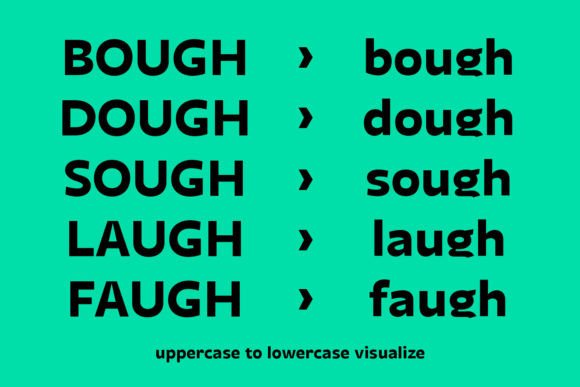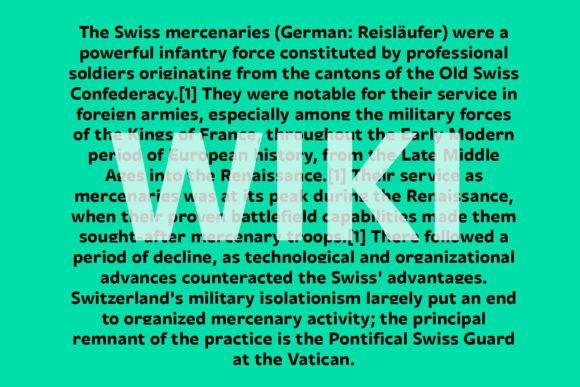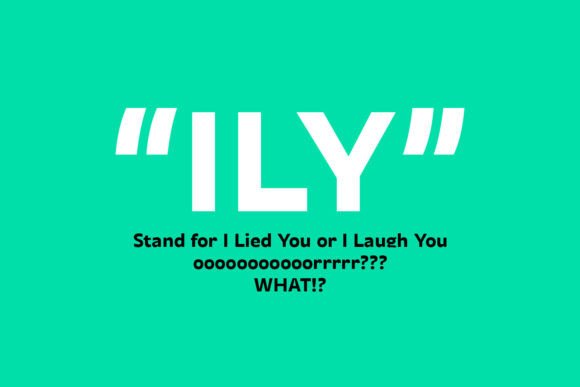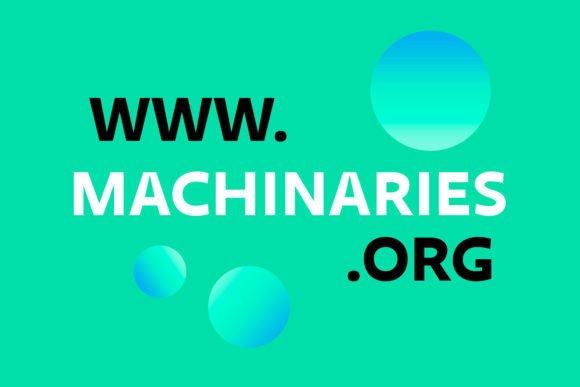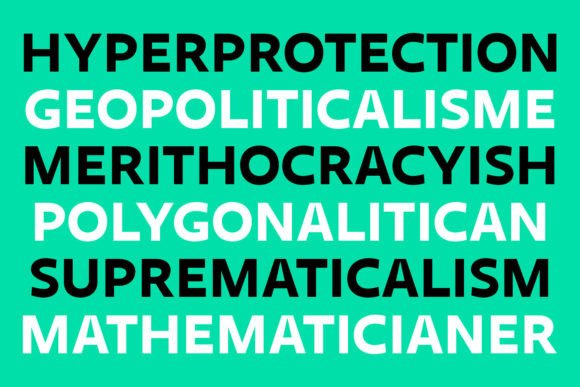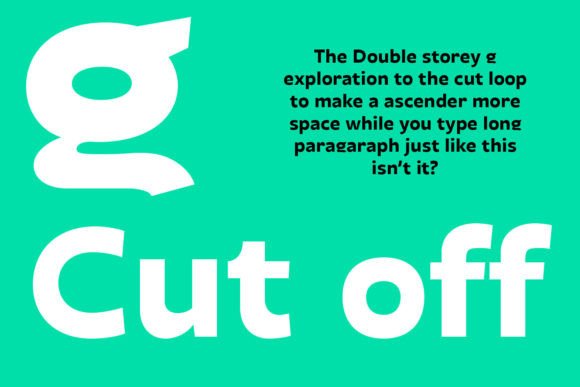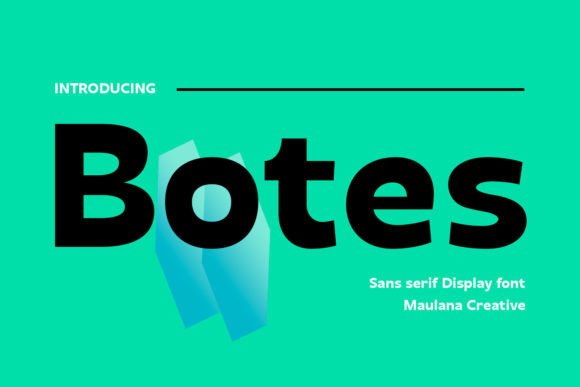
The Designer’s Dilemma: How Botes Font Became My Go-To
I still remember the frustration of working on a project, hours spent crafting the perfect design, only to realize that the font I chose wasn’t quite right. The client wanted something modern, yet approachable; elegant, yet not too formal. I scoured font libraries, but nothing seemed to fit. That’s when I stumbled upon Botes Font, a modern humanist sans serif font that has since become an incredible asset to my design library.
An Honest Review of Botes Font
• ✨ **Clean and modern aesthetic**: Botes Font has a sleek, contemporary look that’s perfect for a wide range of projects, from branding to digital media.
• ✅ **Highly legible**: The font’s humanist design ensures that it’s easy to read, even at smaller sizes.
• 💡 **Versatile**: Botes Font can be used for both headings and body text, making it a great all-around choice.
• 🎨 **OpenType features**: The font includes a range of OpenType features, such as stylistic alternates and ligatures, that allow for creative experimentation.
While Botes Font is an excellent choice, there are a few things to keep in mind:
• 🤔 **Limited italic variations**: While the font does include italic styles, they may not be as pronounced as some designers might like.
• ⚠️ **Occasional kerning issues**: As with any font, there may be some kerning issues that require manual adjustment.
The Story Behind Botes Font
Botes Font was designed with the goal of creating a modern, humanist sans serif font that’s both elegant and approachable. The design process involved extensive research into classic sans serif fonts, as well as a desire to create a font that’s highly legible and versatile.
Q: What type of projects is Botes Font best suited for?
A: Botes Font is a versatile font that’s suitable for a wide range of projects, from branding and digital media to print materials and more.
Q: Does Botes Font include OpenType features?
A: Yes, Botes Font includes a range of OpenType features, such as stylistic alternates and ligatures, that allow for creative experimentation.
Q: Is Botes Font suitable for body text?
A: Yes, Botes Font is highly legible and suitable for body text, making it a great choice for longer-form content.